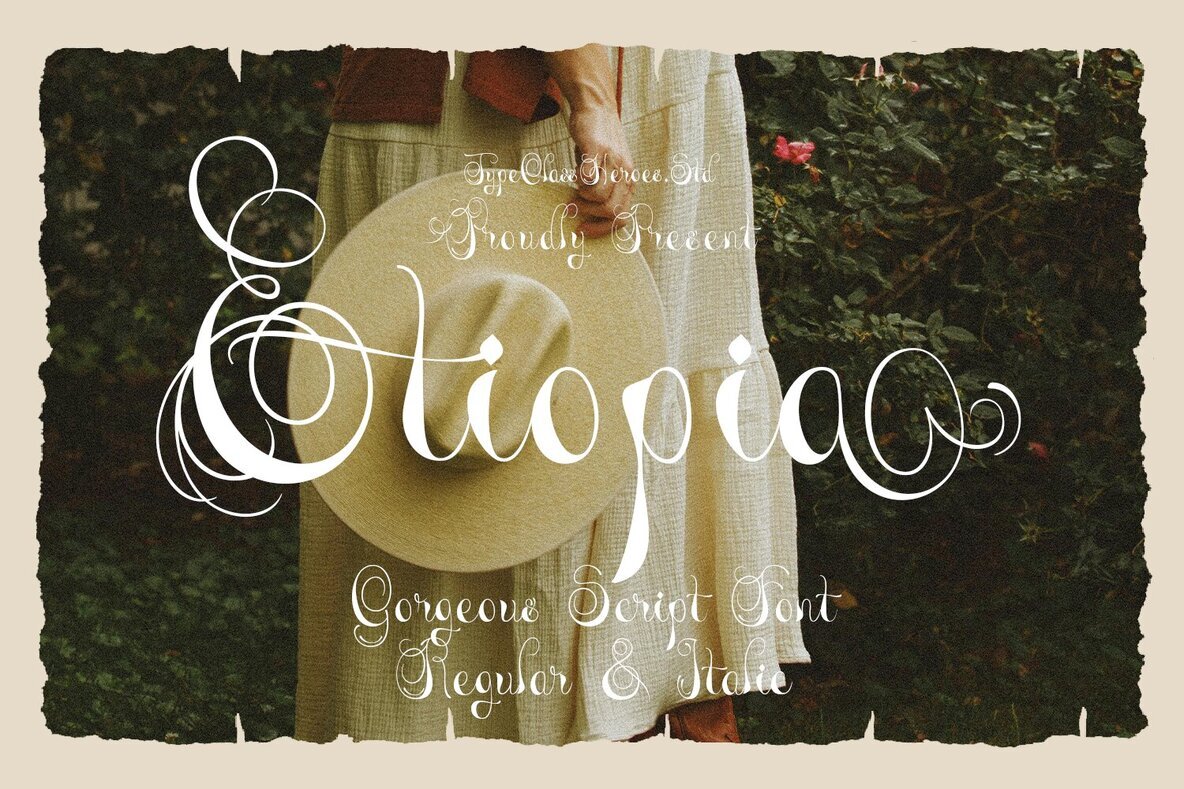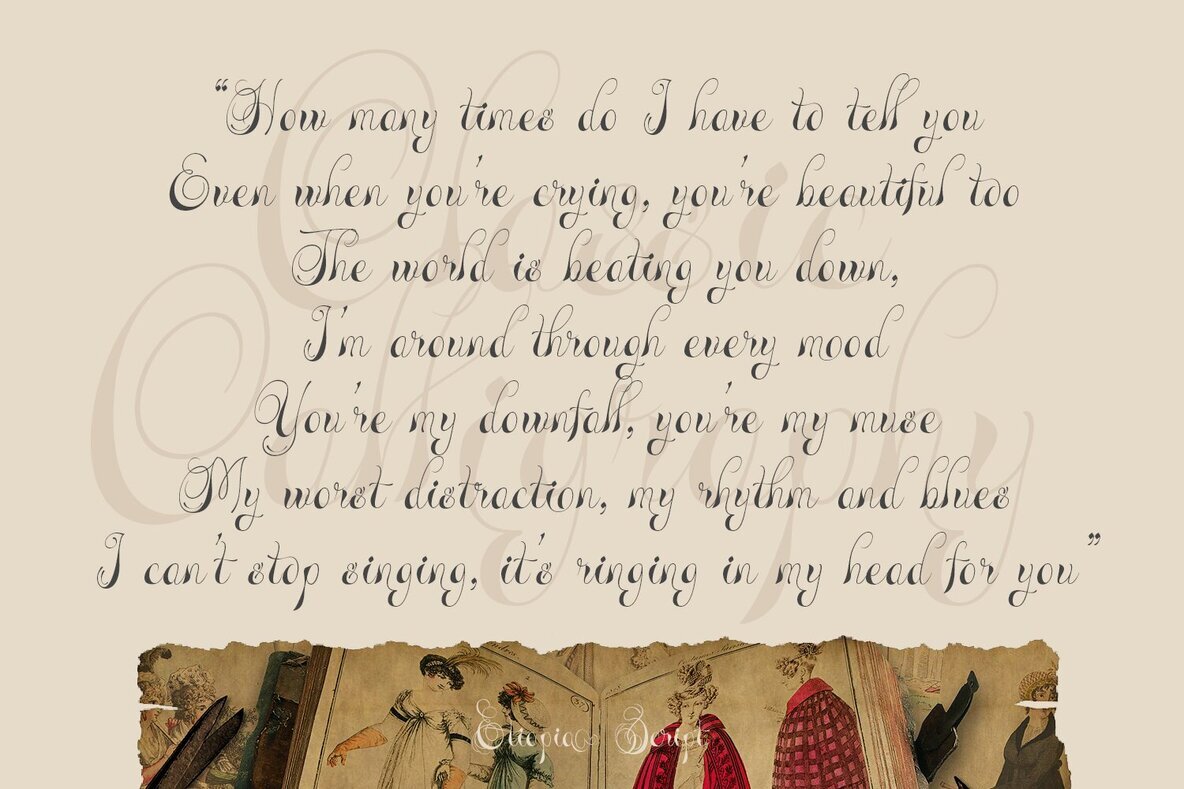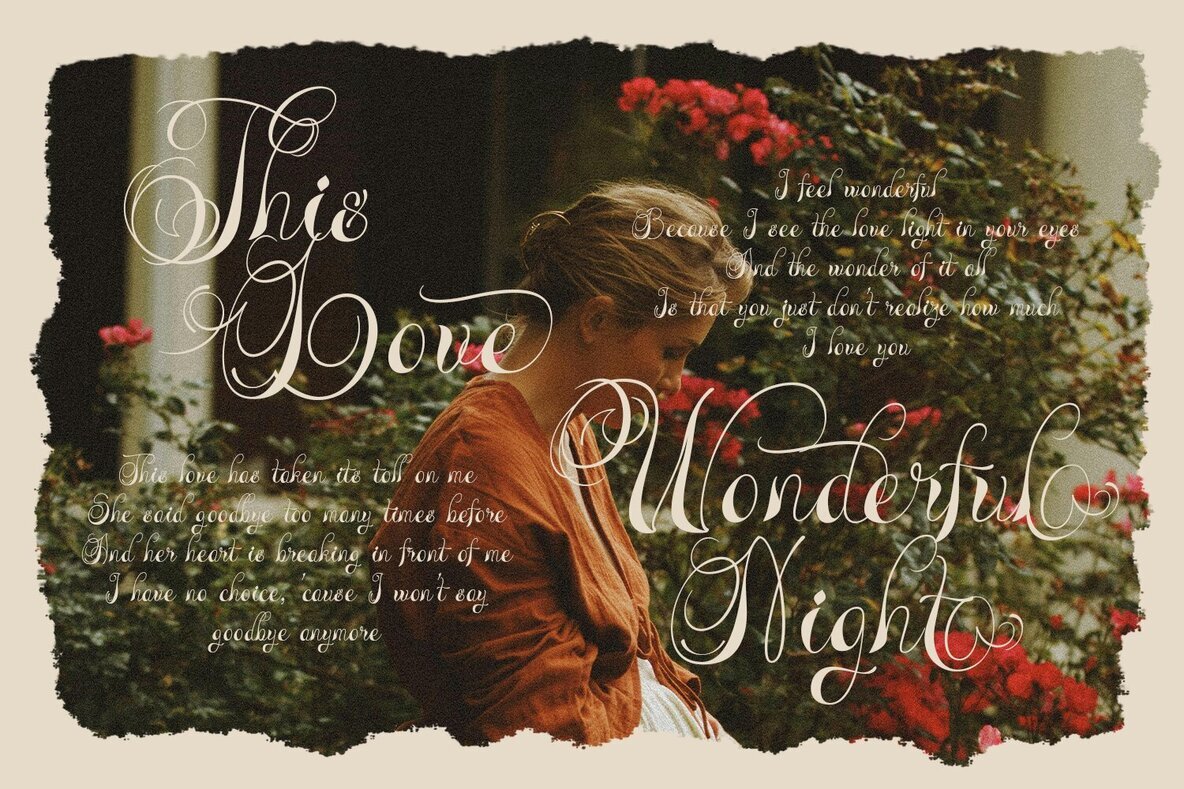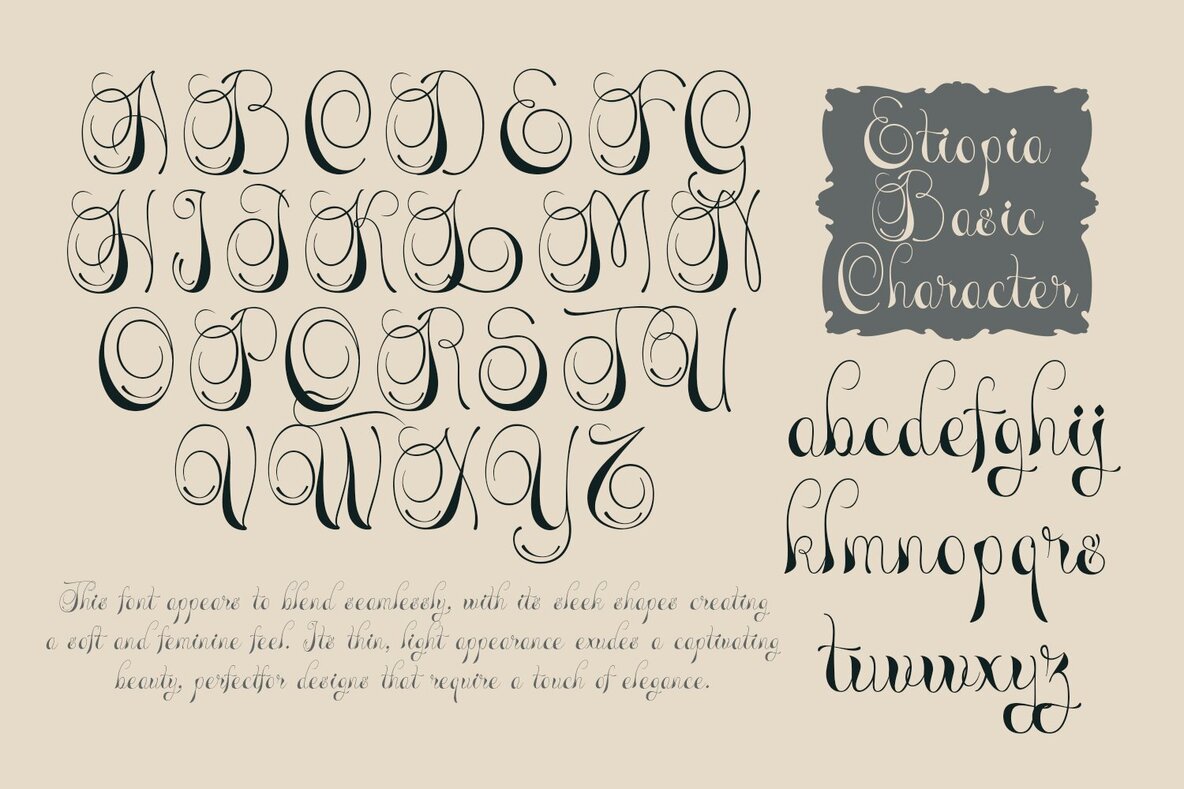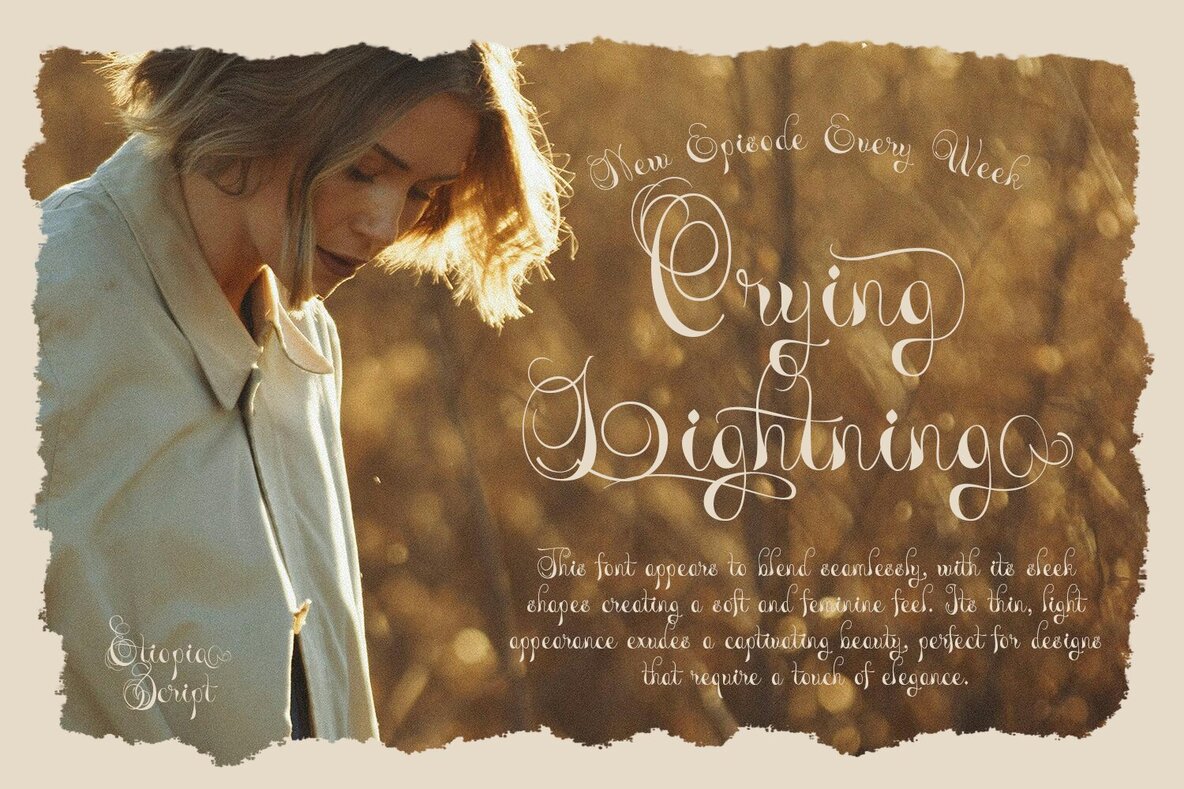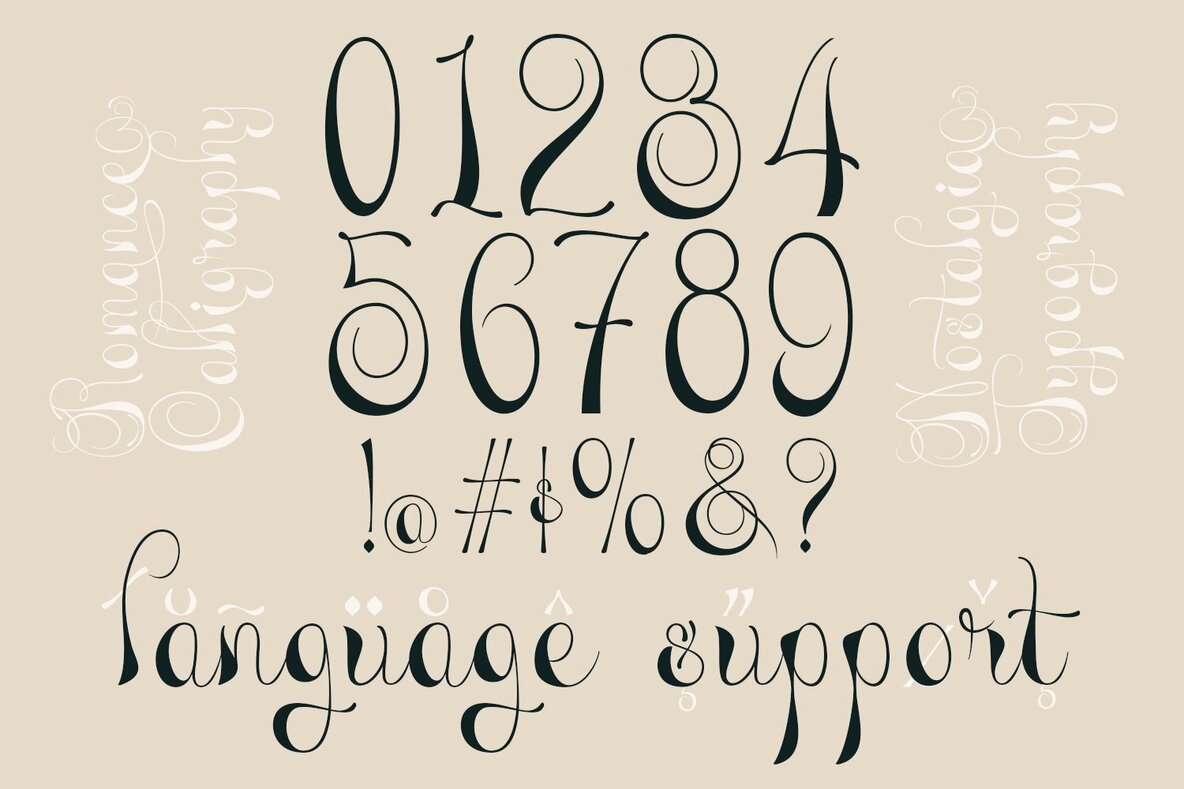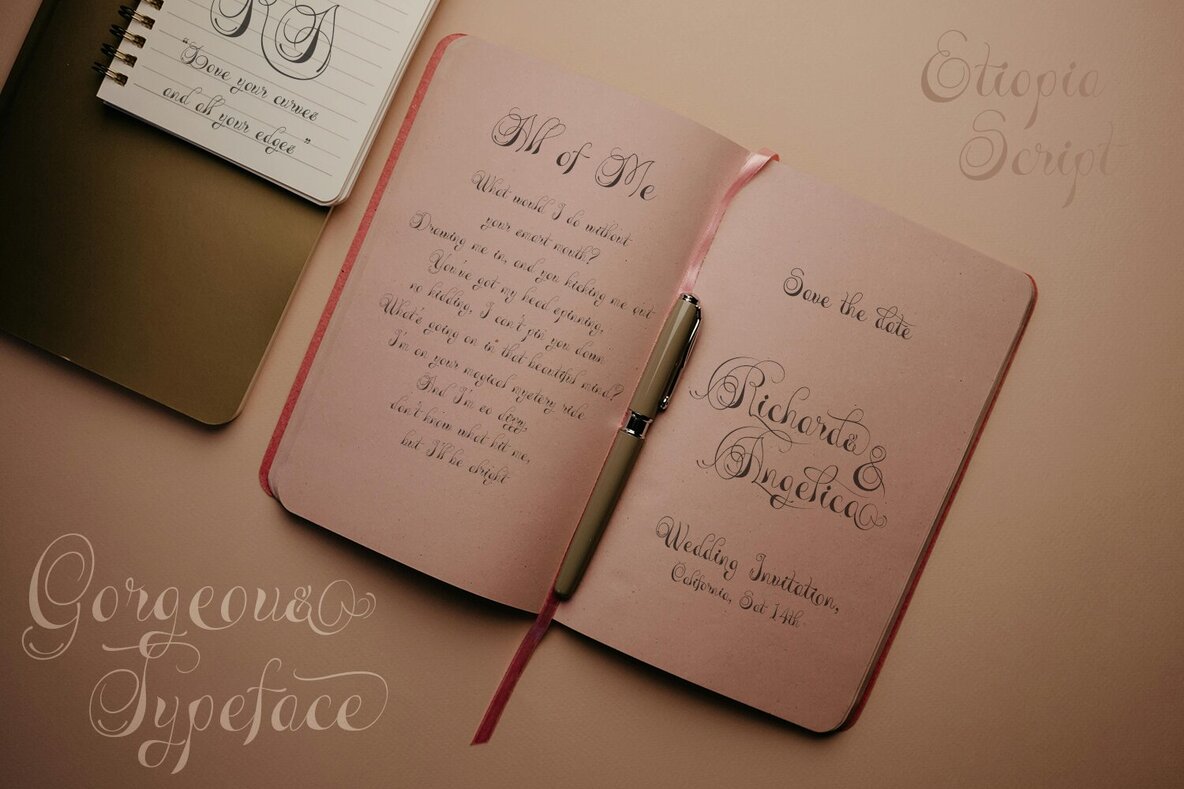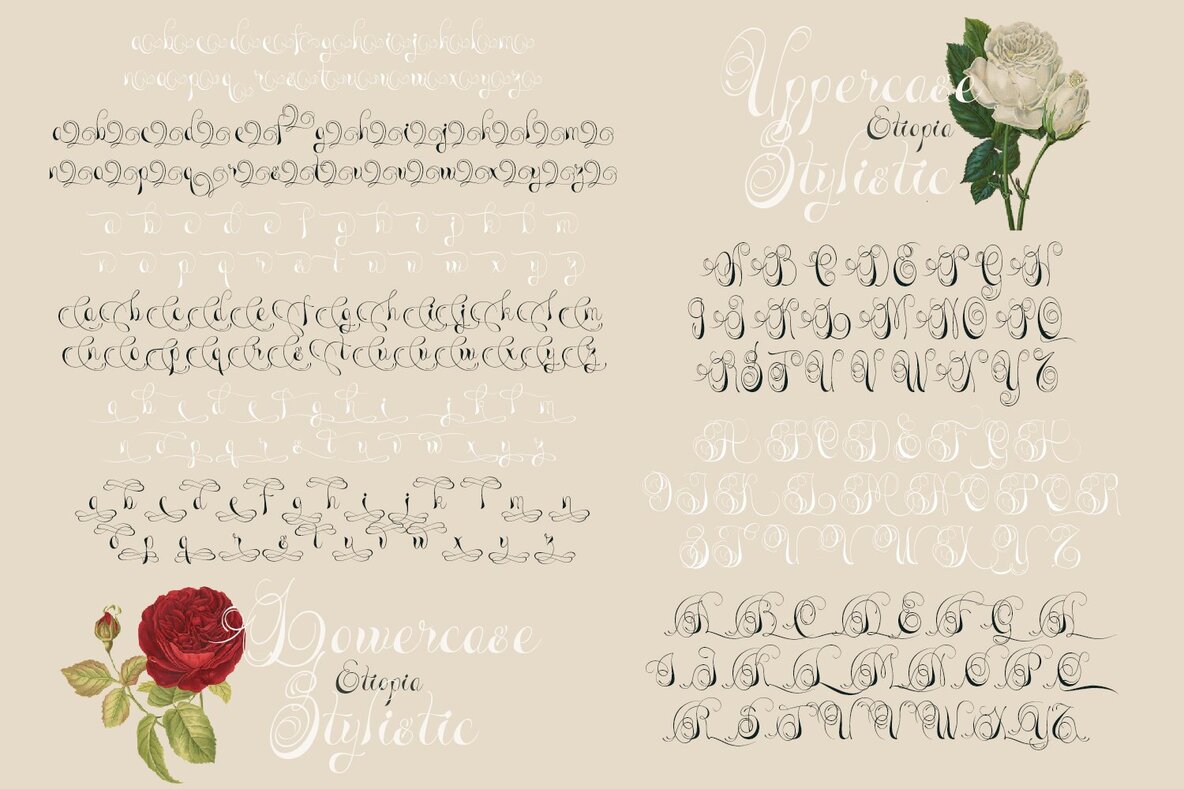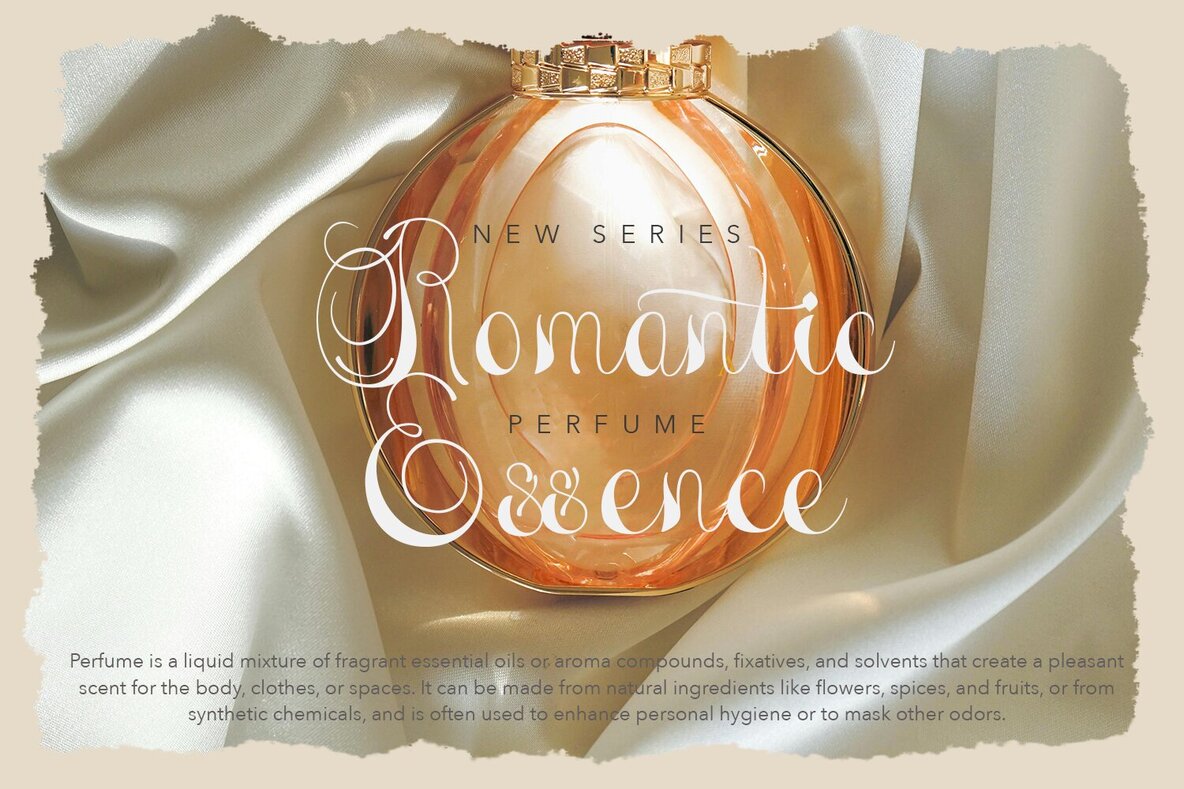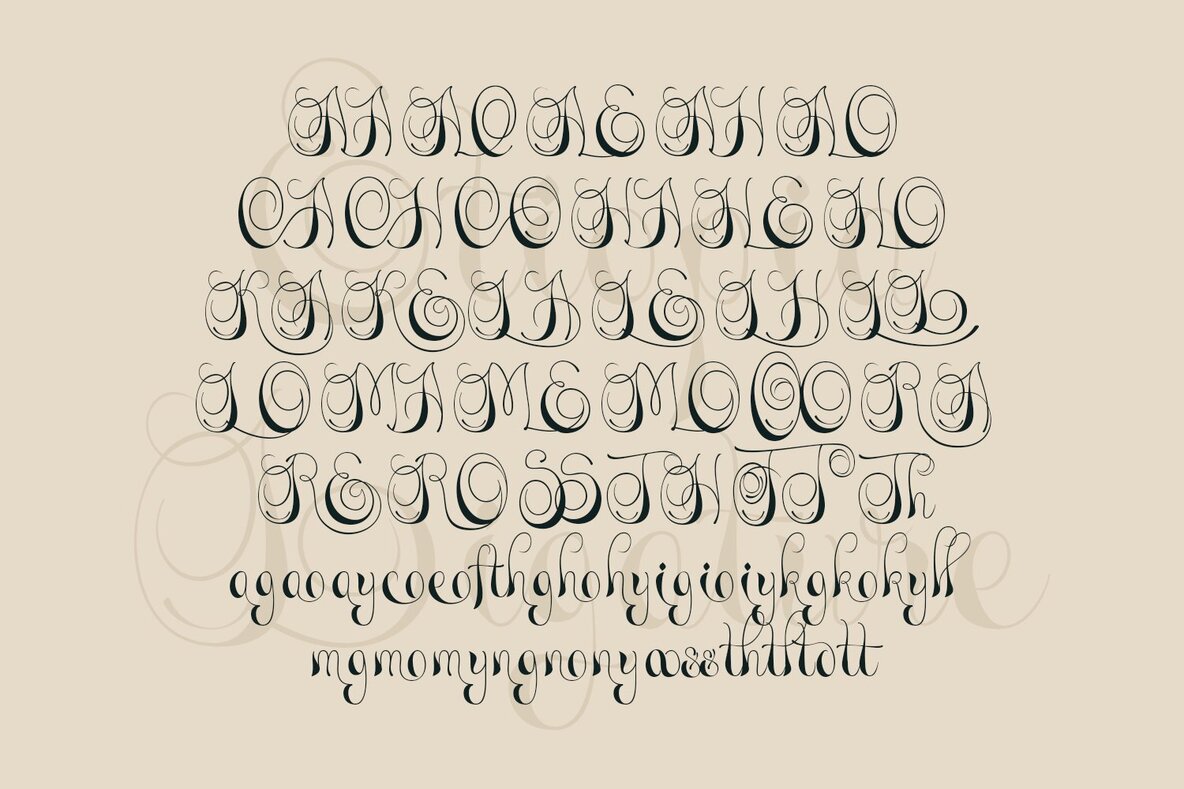
Etiopia Font
Etiopia Regular
Etiopia Italic
Etiopia Script is designed with sleek, refined curves that create a soft and graceful impression. Its thin, understated letterforms lend a polished presence to any layout, resulting in a look that is both delicate and captivating. This script font suits projects that demand a subtle touch of luxury and sophistication. Ideal for high-end branding, Etiopia Script brings a classic feel to book covers, event invitations, and stationery. Its balanced design works especially well for heritage labels and brands seeking a distinctive, feminine aesthetic.Etiopia Script: Timeless Elegance in Every Stroke